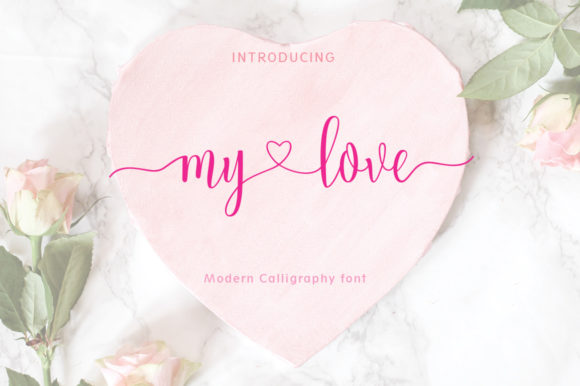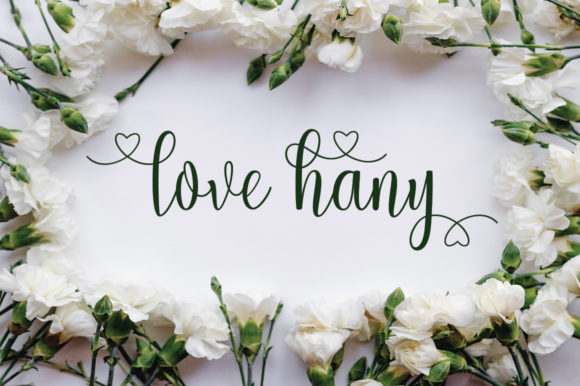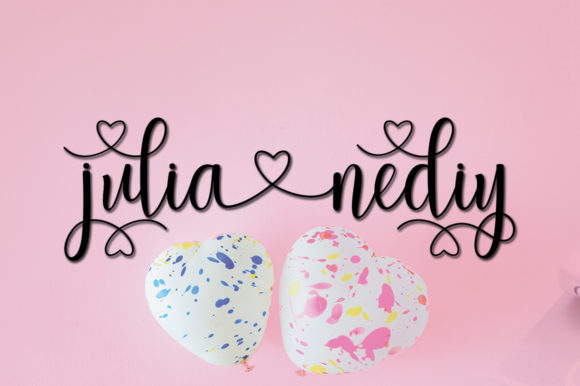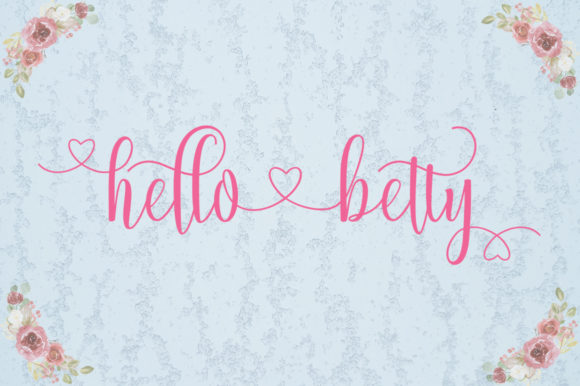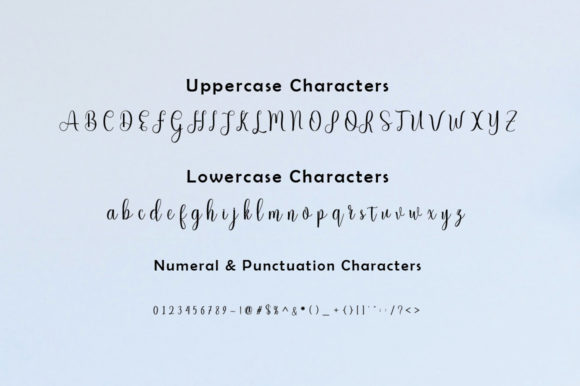
My Love Font
About My Love Font
My Love is inspired by classic typography and brings its own unique style to any design project. It features cute heart-themed swashes. Fall in love with its authentic feel and use it to create gorgeous wedding invitations, beautiful stationary art, eye-catching social media posts, and cute greeting cards.